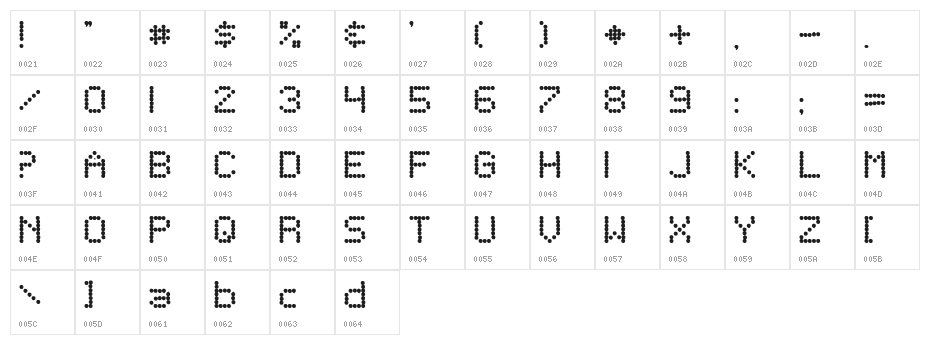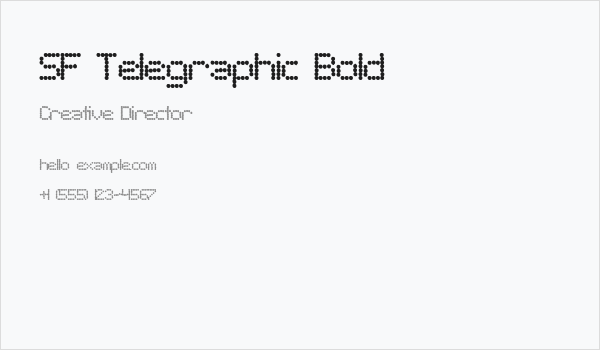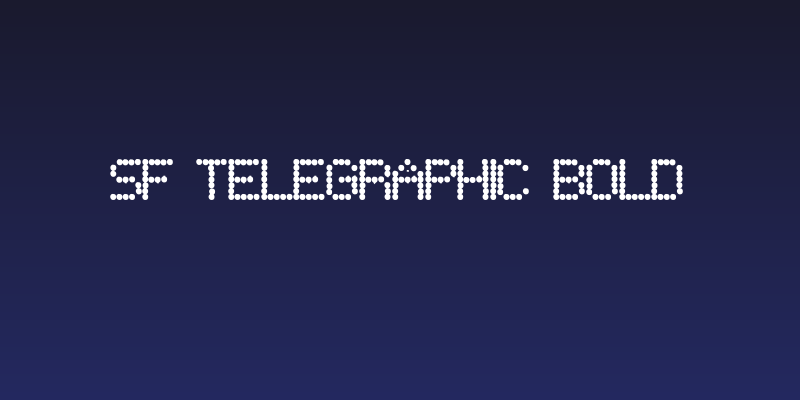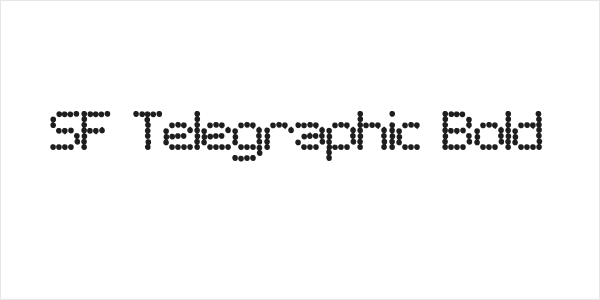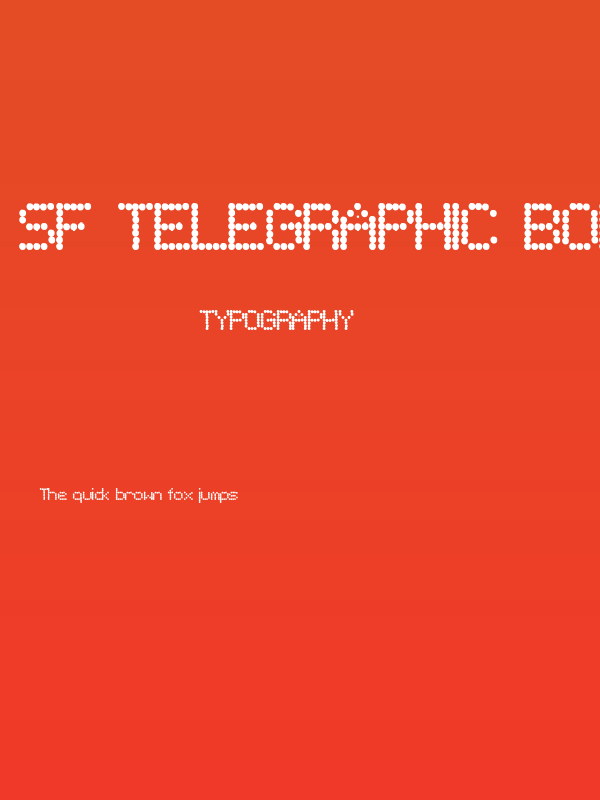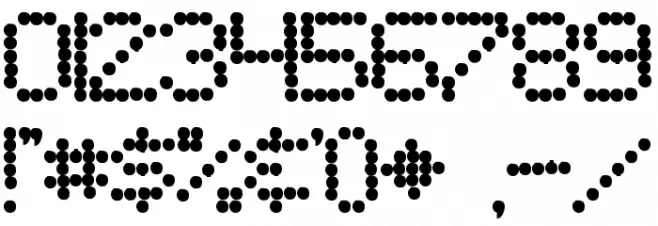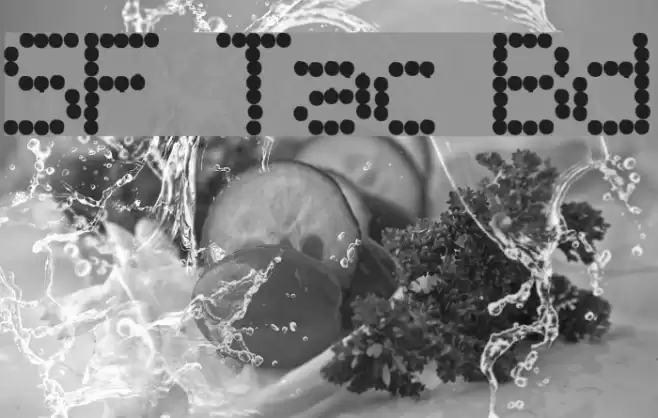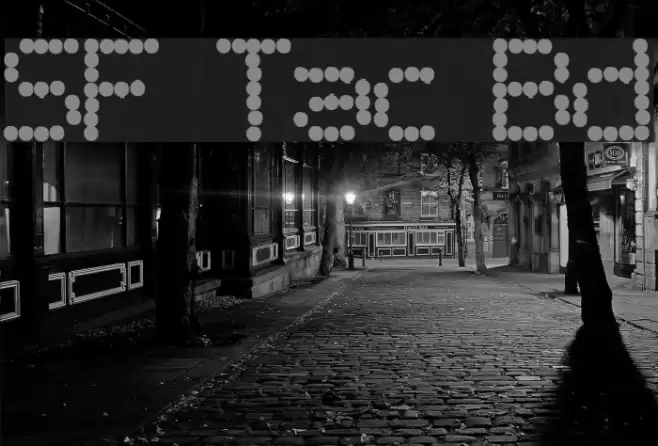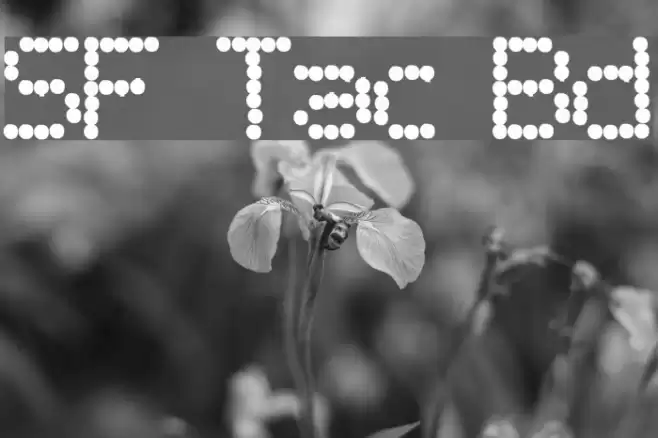
SF Telegraphic Bold Font
SF Telegraphic Bold Description
This font features a unique dot matrix style, reminiscent of old telegraph or digital display fonts. Each character is composed of a grid of dots, giving it a retro, digital feel. The uppercase and lowercase letters maintain a consistent height, while the numbers and special characters follow the same dot pattern, ensuring uniformity across all glyphs. The design is bold and eye-catching, making it suitable for projects that require a vintage or tech-inspired aesthetic. The spacing between the dots is consistent, creating a cohesive look that is both structured and playful.
| Use Case | Headlines, Logos, Digital displays |
| Proposed Projects | Ideal for retro-themed designs, digital displays, tech branding, or any project needing a vintage digital look. |